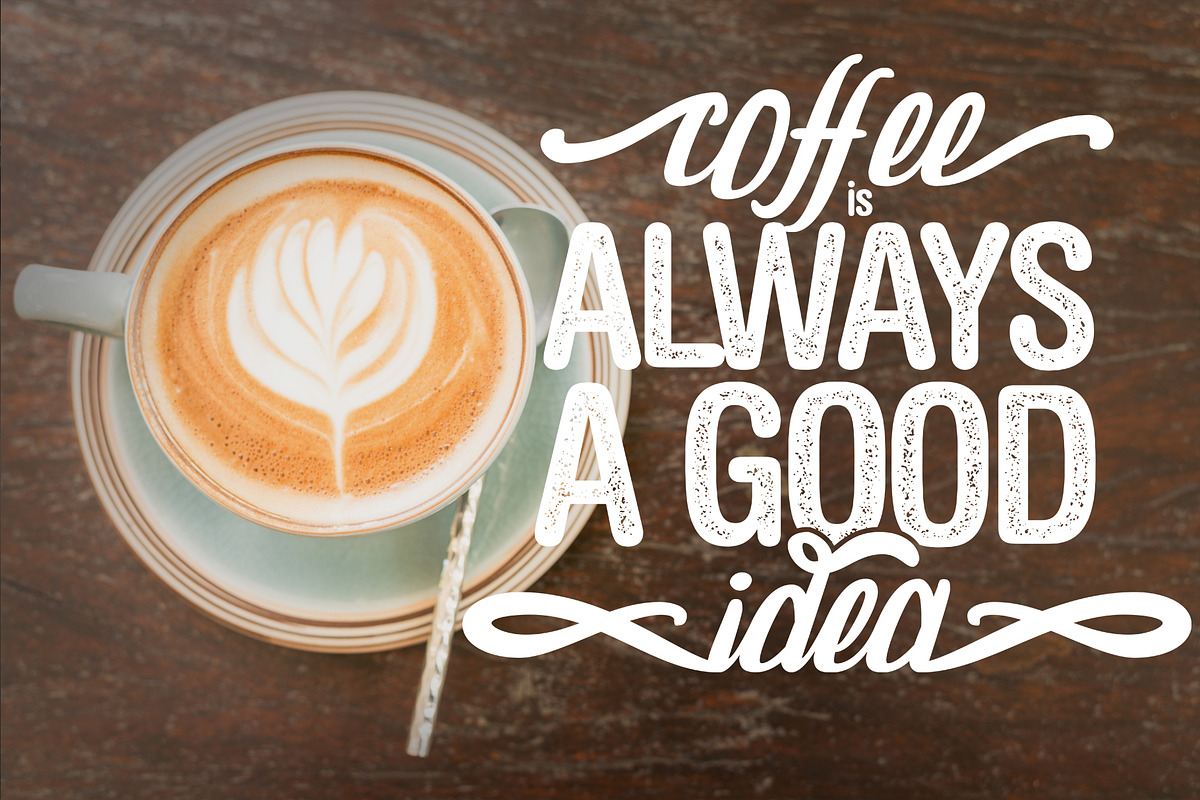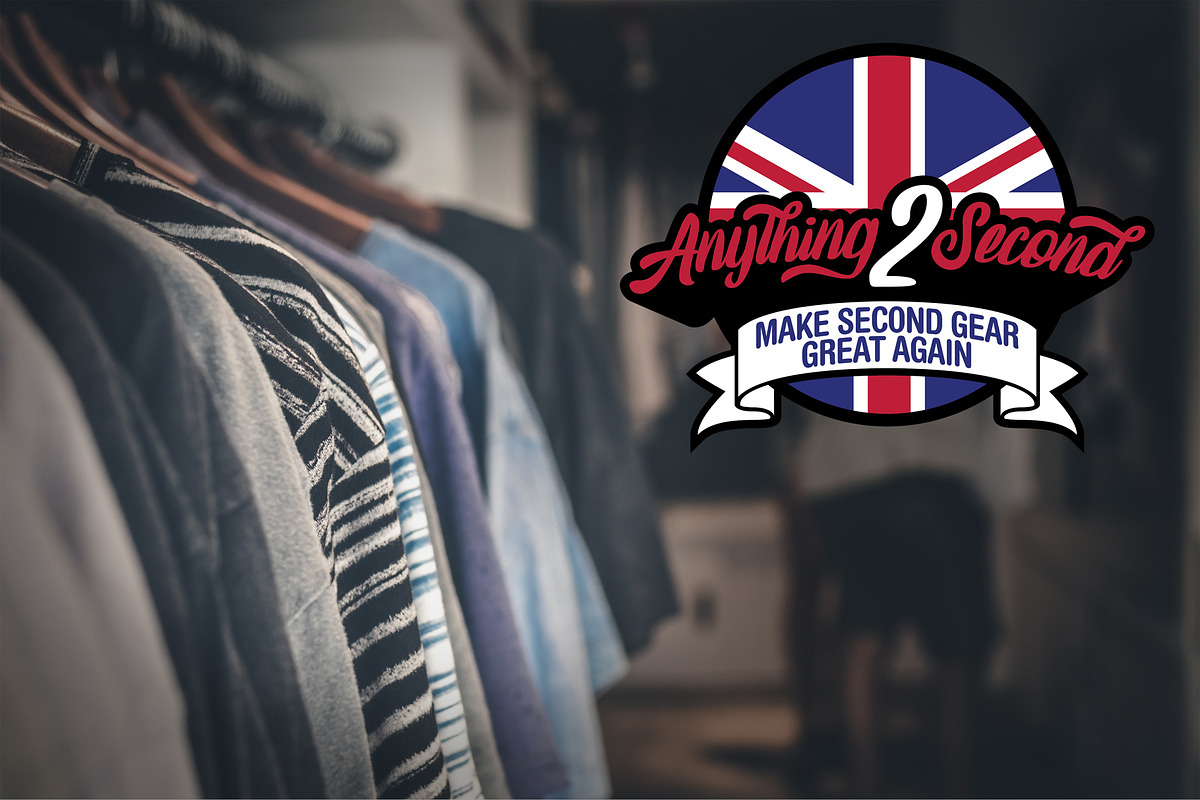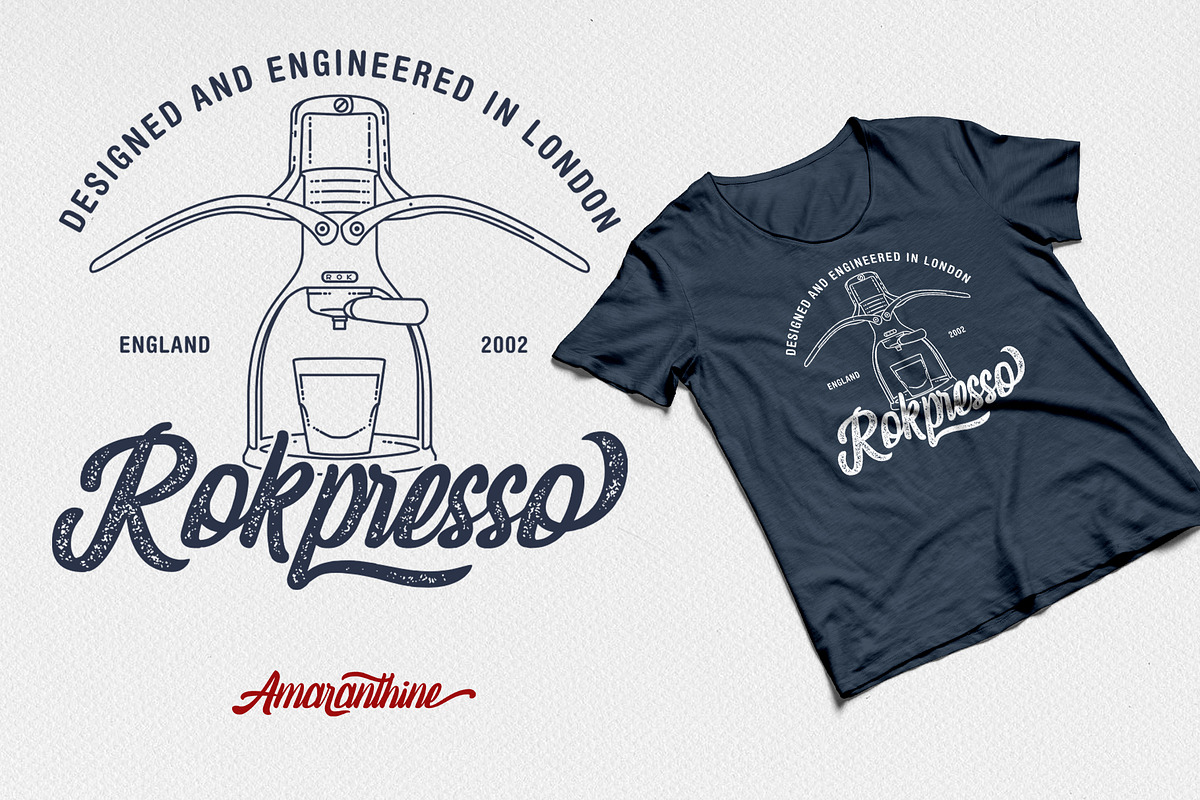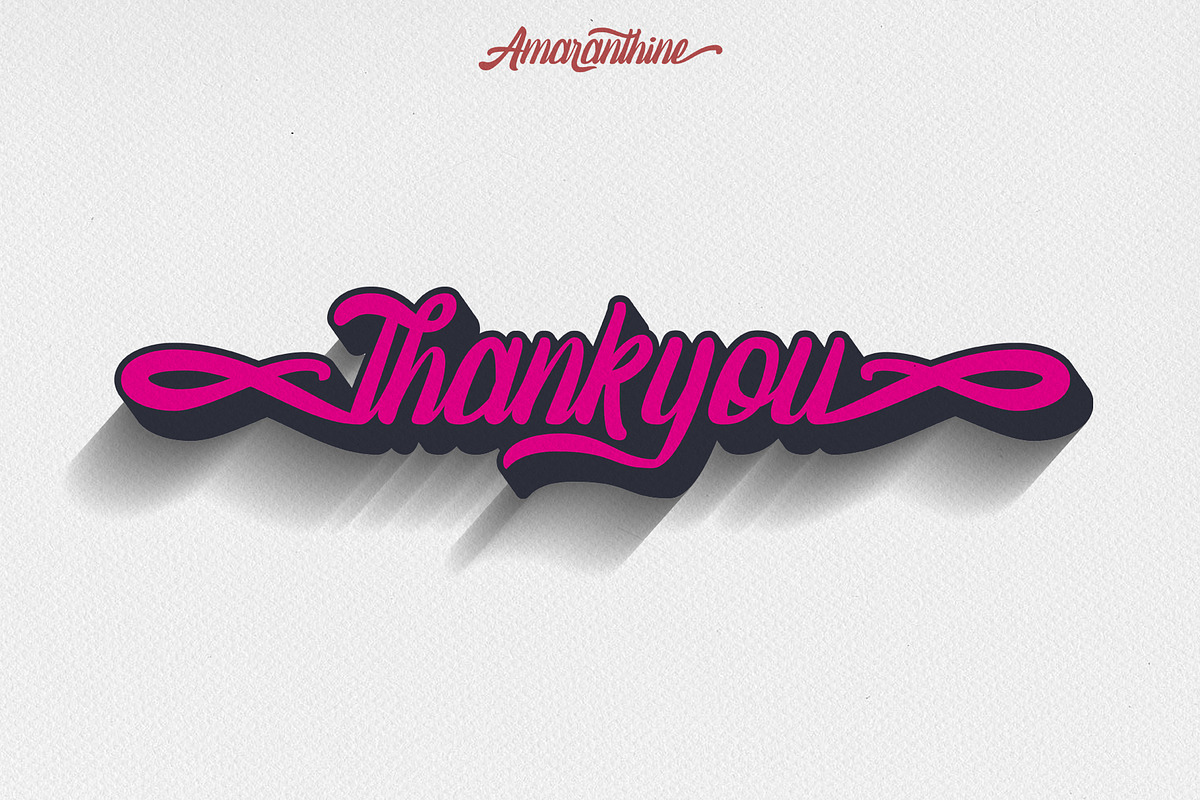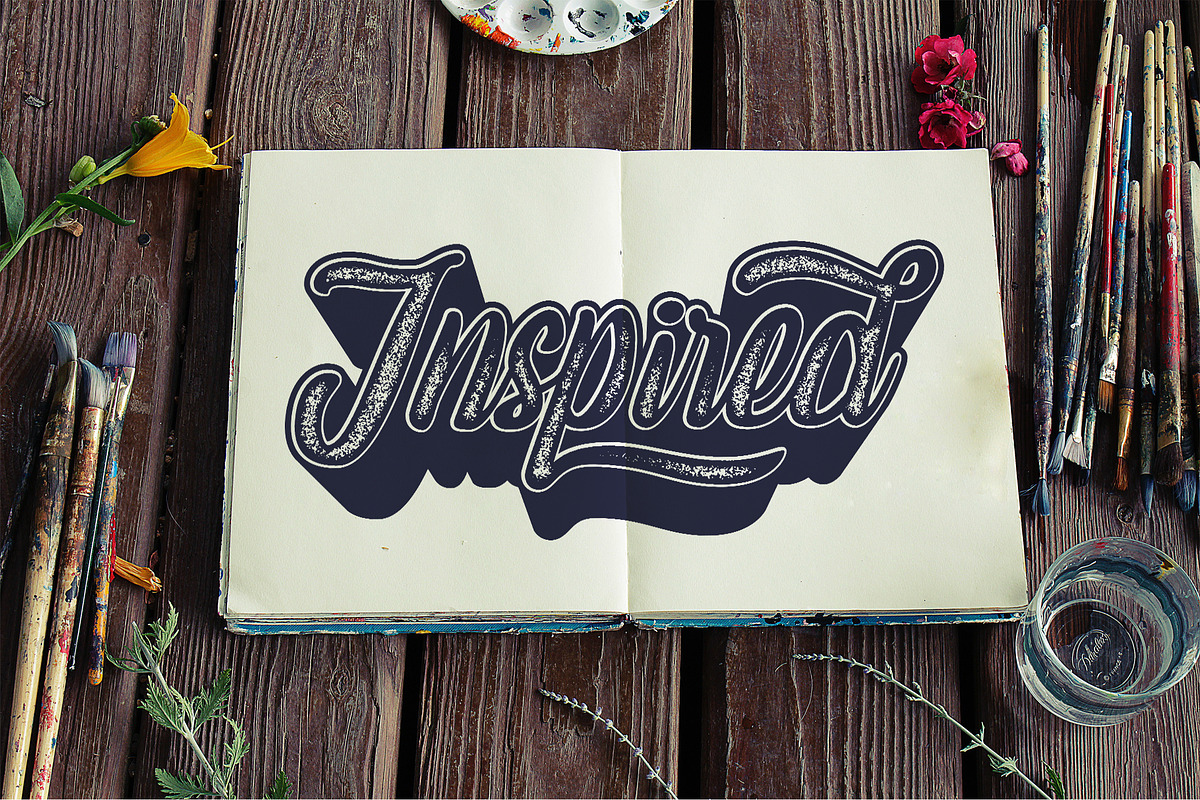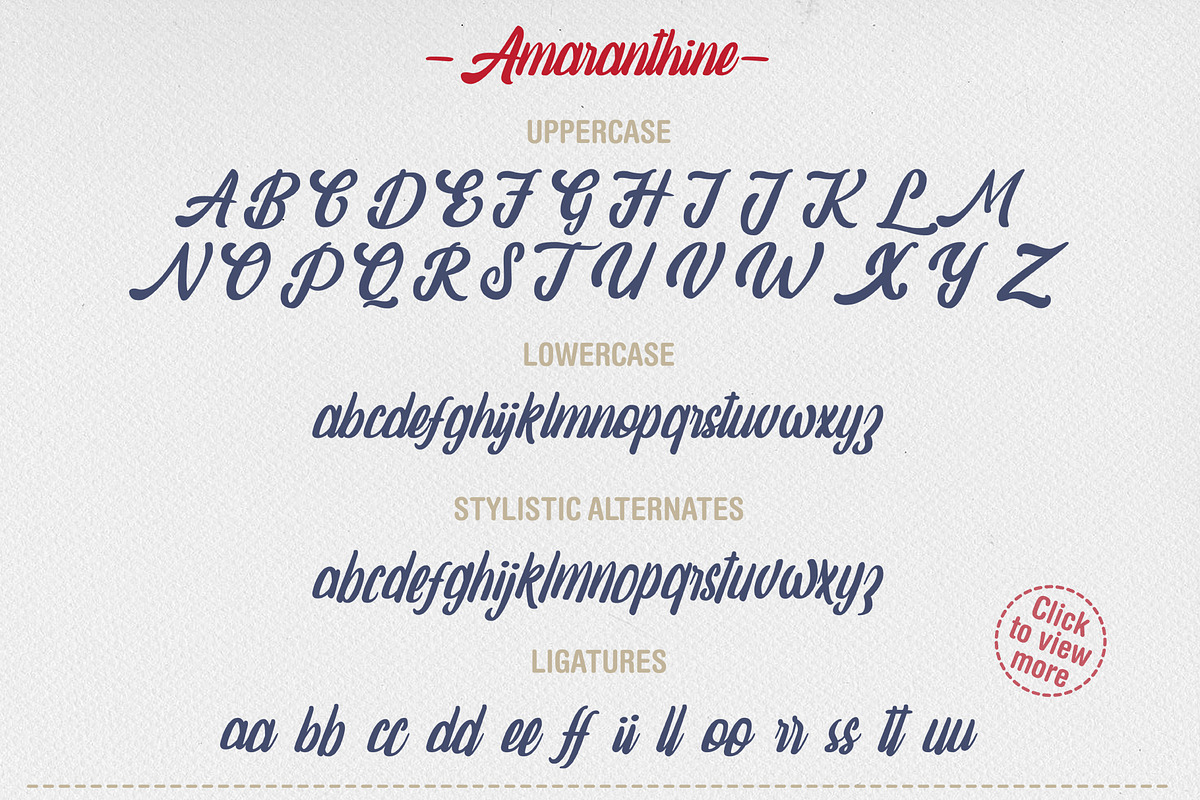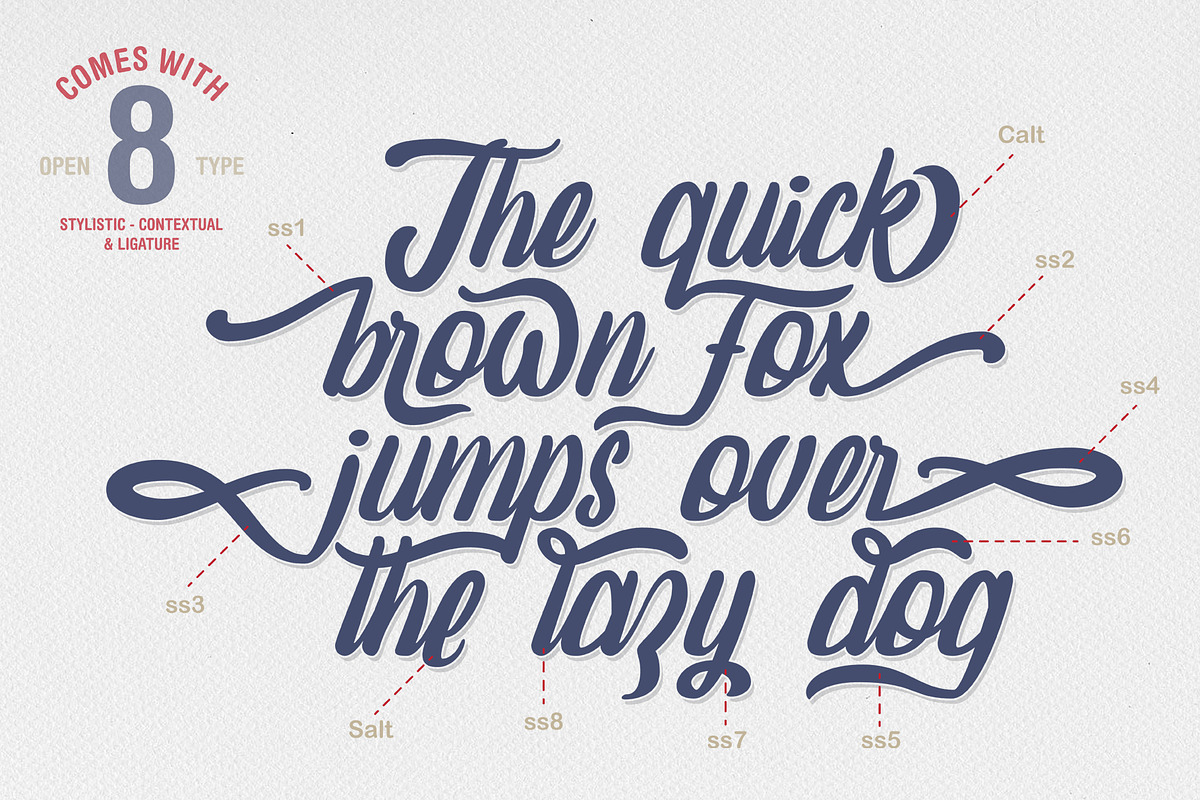
Amaranthine - Vintage Script Fonts
Introducing Amaranthine Script.
Amaranthine Script is smooth and vintage font script. Comes with many opentype feature, upper and lower case standard character set, punctuation and numerals, multilingual characters, ligatures, stylistic alternates and many more glyph.
- Comes with many opentype feature, upper and lower case standard character set, punctuation and numerals, multilingual characters, ligatures,
Why Amaranthine - Vintage Script Fonts is worth a look
Amaranthine - Vintage Script Fonts by SemutHitam Creative fits naturally into Branding, posters, packaging, typography.